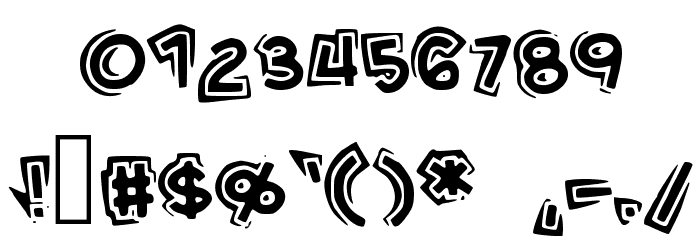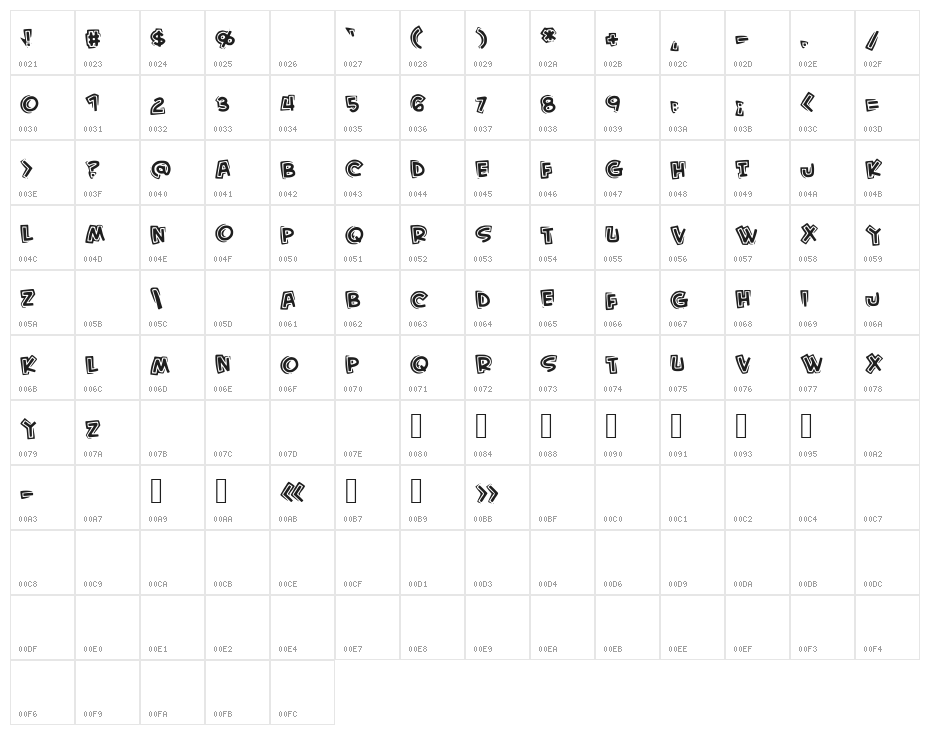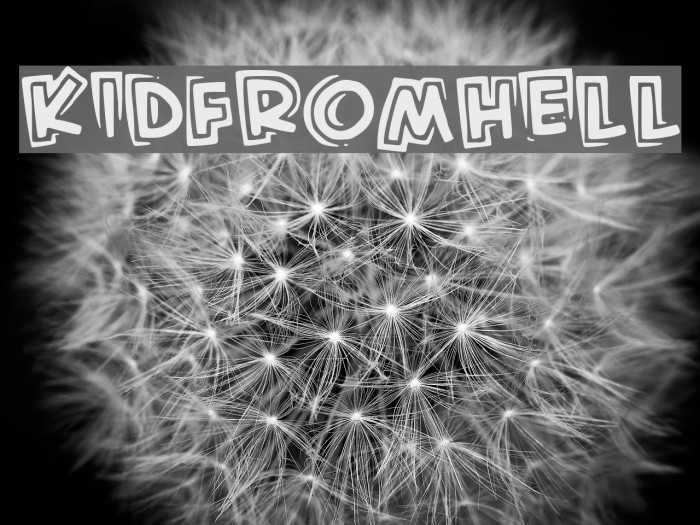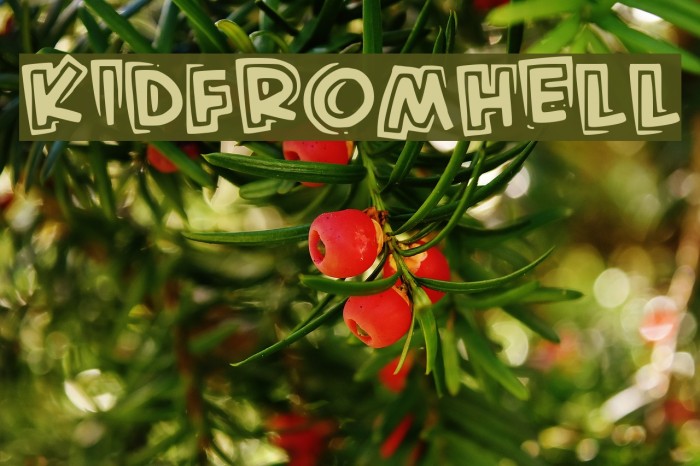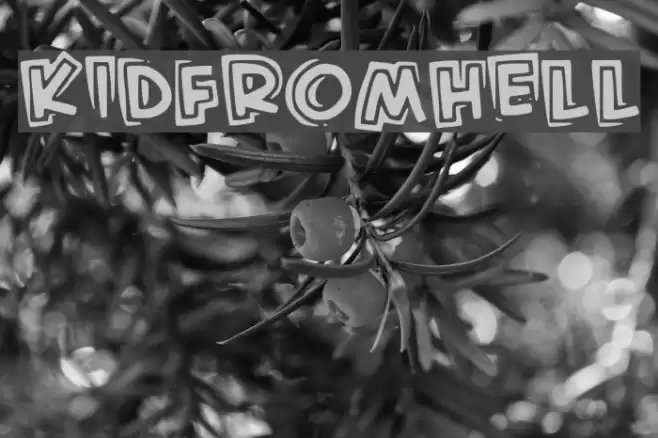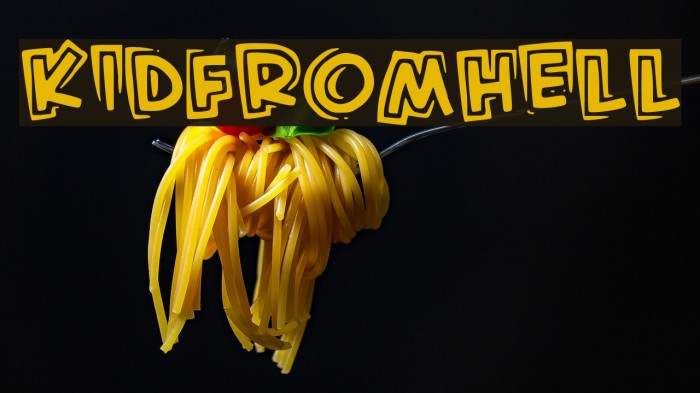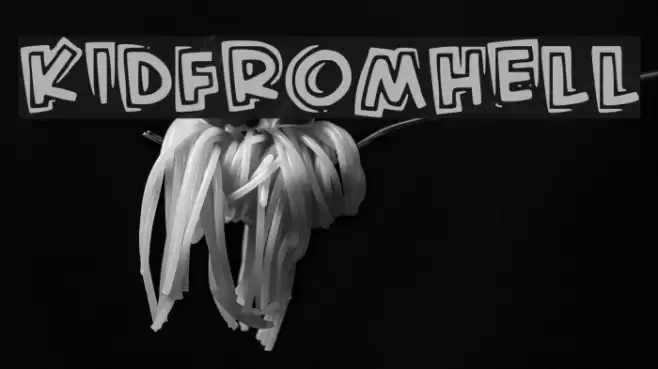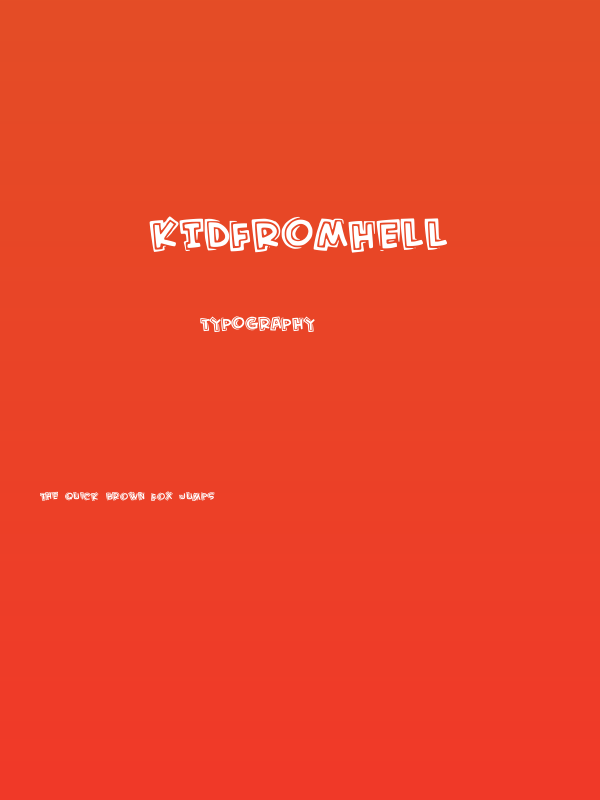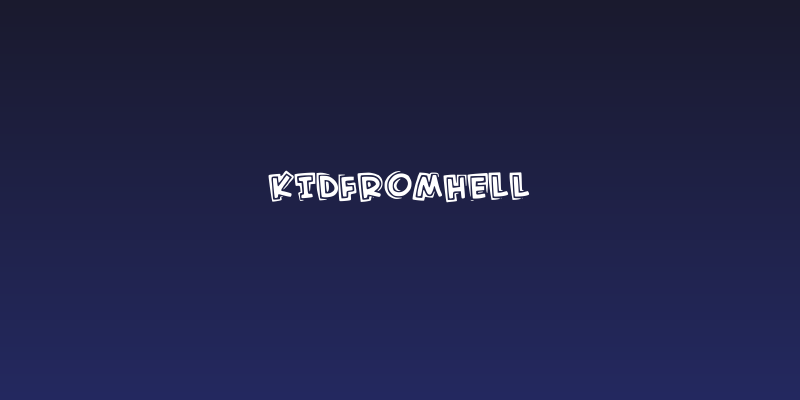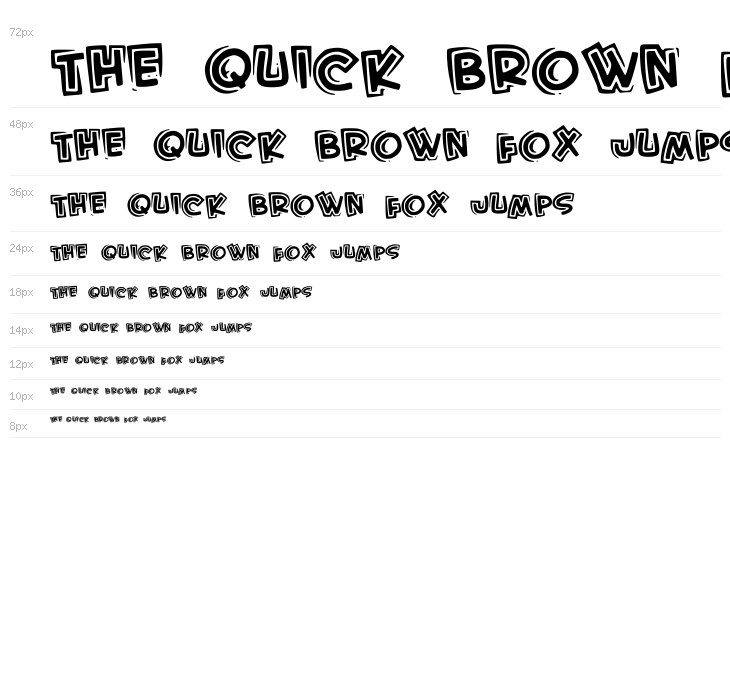
KidFromHell Font
KidFromHell Description
This font features a bold, playful style with a distinct outline that gives each character a three-dimensional effect. The letters are slightly irregular, adding a whimsical and energetic feel. The uppercase and lowercase letters maintain a consistent style, with rounded edges and a hand-drawn appearance. Numbers and special characters follow the same playful design, making the font suitable for creative and informal projects. The overall look is dynamic and eye-catching, perfect for grabbing attention.
| Overall Style | Playful, Energetic, Whimsical |
| Proposed Projects | Ideal for comic books, children's books, posters, and playful branding. |